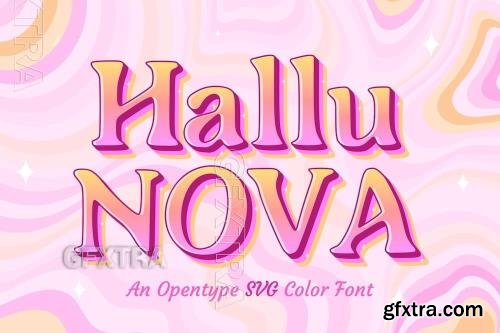
Hallu Nova font
Hallu Nova is a psychedelic, 3D typeface that radiates fashion-forward glamour. Its fluid, dreamy curves and dimensional depth create a hypnotic, high-end aesthetic, perfect for bold branding, editorial design, and statement pieces. With a balance of trippy distortion and sleek elegance, Hallu Nova turns every word into a dazzling, otherworldly visual experience.